In today’s fast-paced, tech-driven world, the digital clock font is a timeless design element that helps brands convey precision, clarity, and a modern edge. Designed by Dusit Supasawat, the DS-Digital font has become a favorite for those looking to add a futuristic touch to their branding. With its unique style, this font is perfect for creating digital displays, countdown timers, and other tech-themed design elements.
Digital clock fonts are more than just about numbers. They are about setting the tone for your brand, whether in a countdown timer, a digital clock number, or a retro-inspired design. Let’s explore how you can incorporate this style into your branding strategy.
Key Digital Clock Fonts to Consider
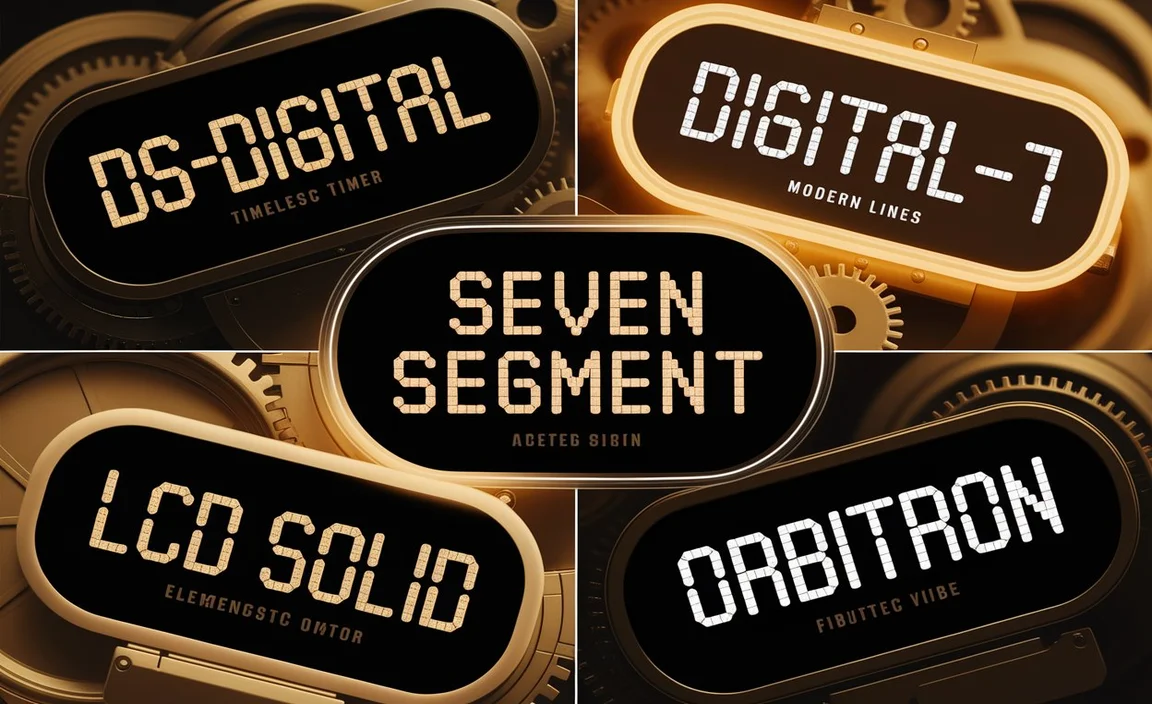
Here are some of the top digital clock fonts you can use to enhance your branding:
- DS-Digital – The classic choice, perfect for digital timers and clocks.
- Digital-7 – Smooth, modern, and perfect for digital numbers and text displays.
- Seven Segment – For a more traditional, blocky look, ideal for tech and retro-themed designs.
- LCD Solid – A segmented, electronic-style font great for displays and signs.
- Orbitron – A futuristic option, perfect for sci-fi or high-tech designs.
Why Use Digital Clock Fonts in Branding?
Versatility Across Platforms
Digital clock fonts work well across digital and print media, making them highly versatile for various applications. Whether working on a website, creating a countdown timer, or designing a logo, this font style can elevate your design and bring attention to key messages.
- Tech-Themed Designs: Perfect for any electronic display or futuristic project.
- Time-Based Branding: Ideal for showcasing time, hour, or minute in a digital format.
- Countdowns and Promotions: Use countdown timers or digital watch styles to add urgency to limited-time offers.
The Nostalgic Appeal
One of the strongest attractions of digital clock fonts is their ability to evoke nostalgia while staying modern. The digital numbers bring back the feel of old-school clocks and timers, making them perfect for brands that want to tap into retro or Y2K aesthetics. It’s a great way to balance precision and nostalgia in a modern design setting.
Best Practices for Using Digital Clock Fonts in Branding
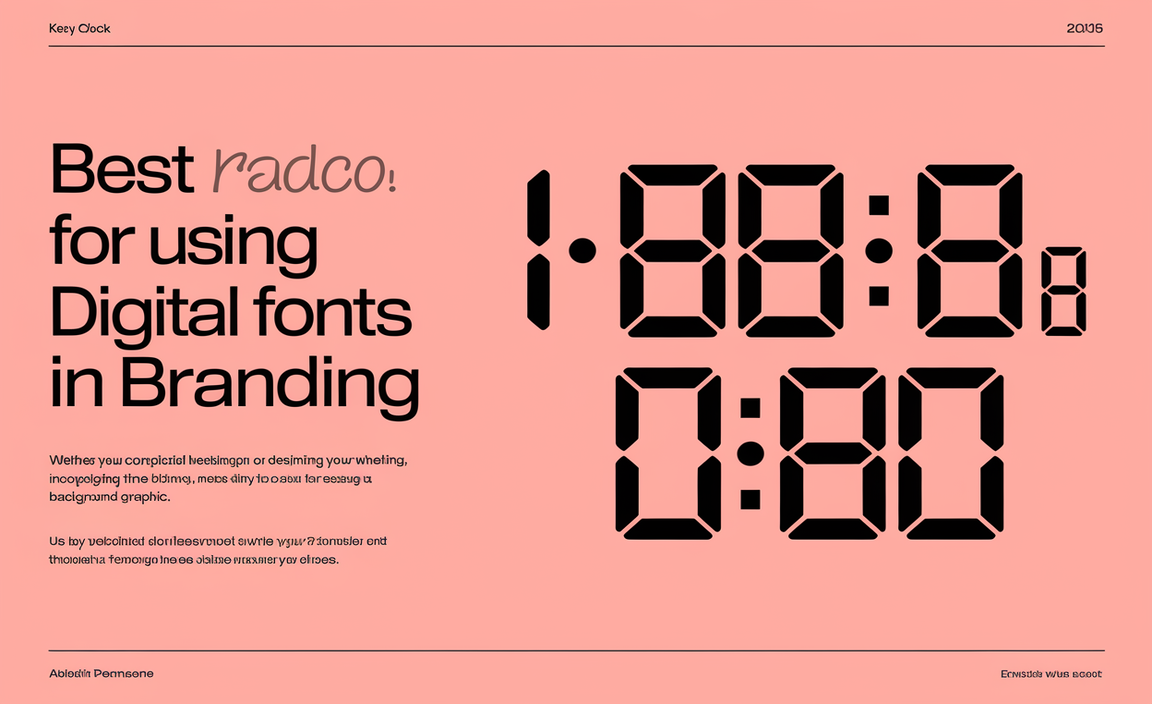
Keep It Simple
The best use of digital fonts comes with simplicity. Focus on clear readability and avoid over-complicating designs with too much text. Whether you’re showcasing a time clock or designing a simple background graphic, let the font shine through without overwhelming your audience.
Stay Consistent
Incorporating digital fonts into your branding should be consistent. If your logo or main message uses this style, maintain it across your website, social media posts, and promotional materials. This consistency builds a stronger brand identity.
Use the Right Application
Make sure you apply digital clock fonts where they make sense. For example, they work wonders in settings like digital watches, alarm clocks, or any time-related design. However, they may not be suitable for formal text-heavy designs like lengthy paragraphs or detailed reports.
Use Digital Clock Fonts in Branding
As we continue to move towards more tech-integrated designs and electronic displays, digital fonts will remain a staple for forward-thinking brands. Their unique style fits perfectly with industries focusing on technology, digital products, and modern aesthetics. Whether you’re working on a website, an app, or an advertisement, digital clock fonts will add a contemporary touch that appeals to today’s digital audience.
What Industries Can Benefit From Using Digital Clock Fonts?
Industries like technology, sports, gaming, and fashion can benefit the most, especially for tech-driven or time-sensitive branding.
Are Digital Clock Fonts Easy To Read On Small Screens?
Yes, digital clock fonts are designed for readability, even at smaller sizes, making them perfect for mobile and web applications.
How Do I Pair A Digital Clock Font With Other Fonts?
Pair digital fonts with clean, simple typefaces like Roboto or Helvetica to ensure readability and contrast without overwhelming the design.
Can Digital Clock Fonts Be Used For Long Paragraphs Of Text?
They are best used for short pieces of text, such as headlines, messages, or numbers. Long paragraphs can be harder to read in this style.
What Are The Key Benefits Of Using Digital Fonts In Branding?
They help convey a modern, tech-inspired look while ensuring clarity and precision, making them perfect for time-related promotions, events, or tech-focused designs.